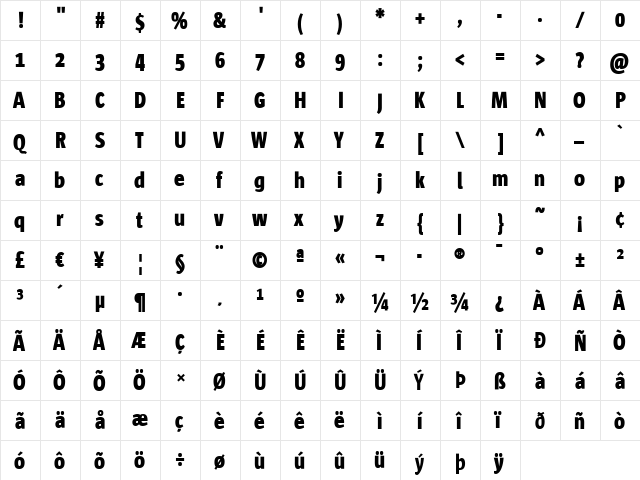
Sun Sans Condensed- SunSansCondensed Heavy
| Foundry | Luc[as] de Groot Exclusive for Sun Microsystems, version |
Design Context for Sun Sans Condensed- Typeface
Sun Sans Condensed- takes a measured approach to typography — its balanced proportions and neutral character make it a reliable workhorse for both digital and print work. Its narrow stance lets it pack a punch even in space-constrained designs.